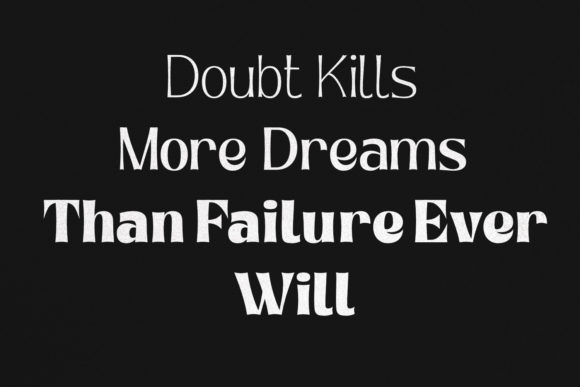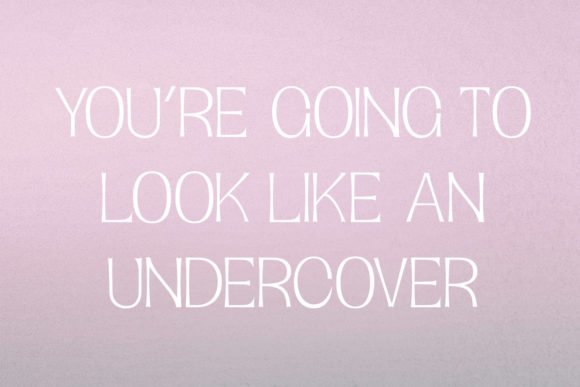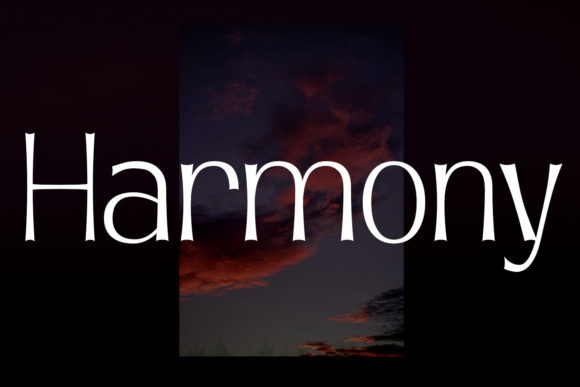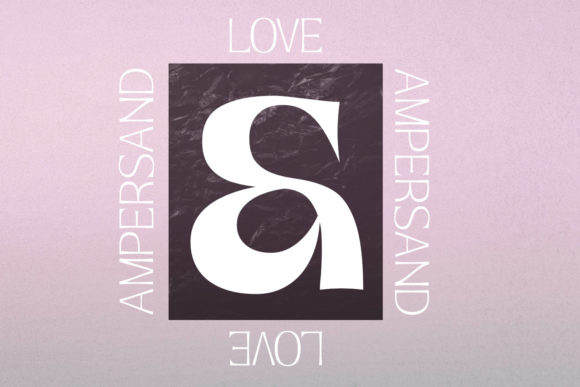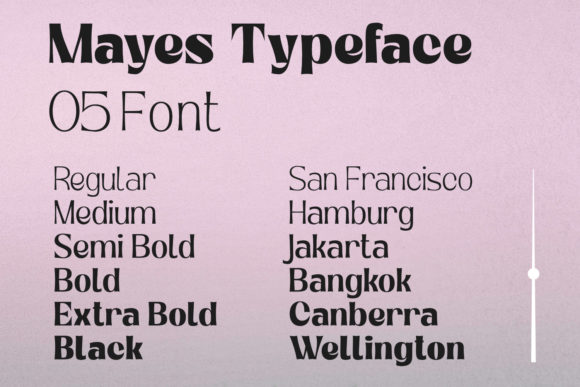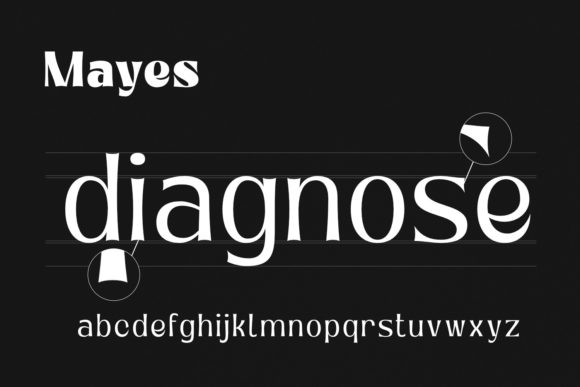
Introduction to Mayes Font
Have you ever been stuck in a creative rut, staring at a blank page or screen, desperately searching for the perfect font to elevate your design project? For designers, finding the right font can be a game-changer, and that’s where Mayes Font comes in.
This modern serif font is a breath of fresh air, offering a unique blend of readability, boldness, and style that’s sure to take your creative project to the next level. With its smooth curves and sophisticated feel, Mayes Font is perfect for fashion branding, editorial designs, or any other project where you want to make a statement.
Key Features of Mayes Font
- High-quality design: Mayes Font is designed to provide a unique and professional look for any creative project.
- Unique characteristics: The font’s unique design elements, such as its custom shapes and lines, make it stand out from other fonts and add a touch of personality to any design.
Honest Review: Mayes Font
I recently stumbled upon the Mayes Font, and I must say it’s a great addition to any designer’s toolkit. As a creative professional, I’m always on the lookout for high-quality fonts that can elevate my projects.
- ✨ The Mayes Font offers a unique, modern aesthetic that works well for a variety of design projects.
While the Mayes Font is a solid choice, I did notice a few limitations. ⚠️ The font is only available in a limited number of weights, which may not be suitable for projects that require a wide range of typographic options.
Common Use Cases for the Mayes Font
The Mayes Font is perfect for creating invitations, posters, and social media graphics. Its high-quality design and transparent background feature make it ideal for creating visually appealing graphics. You can also use it in business presentations, reports, and other professional documents.